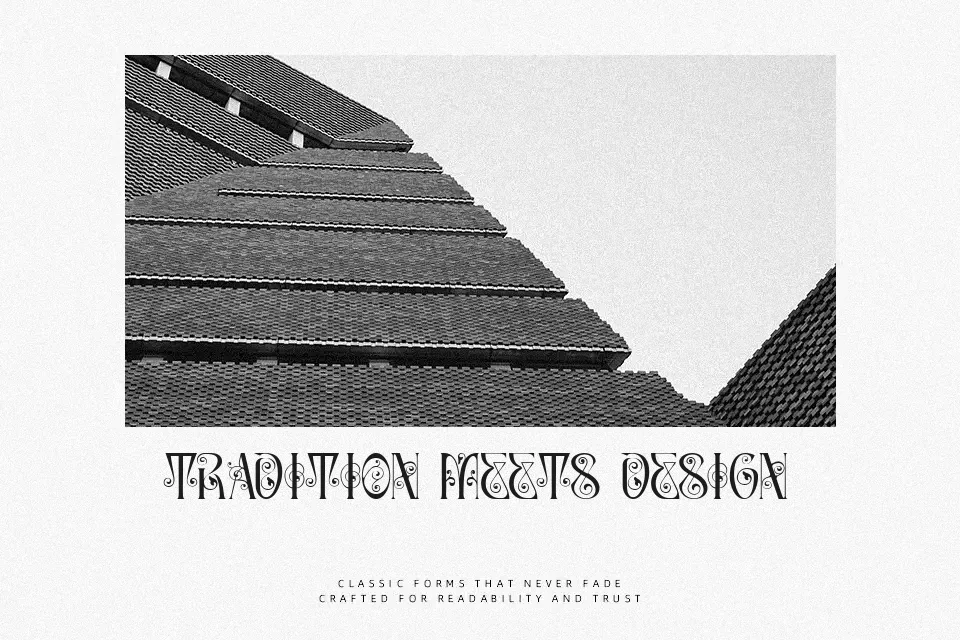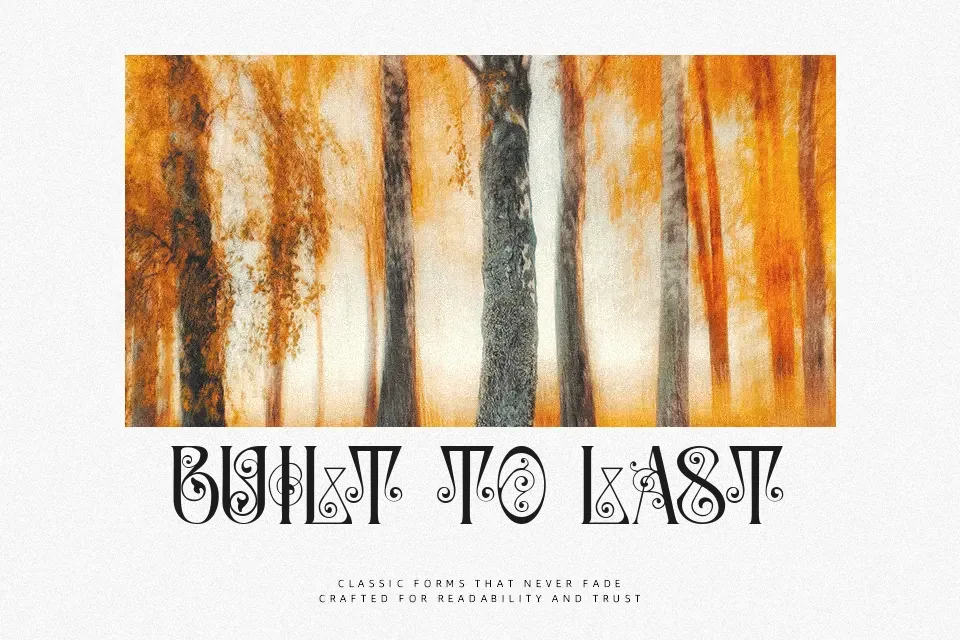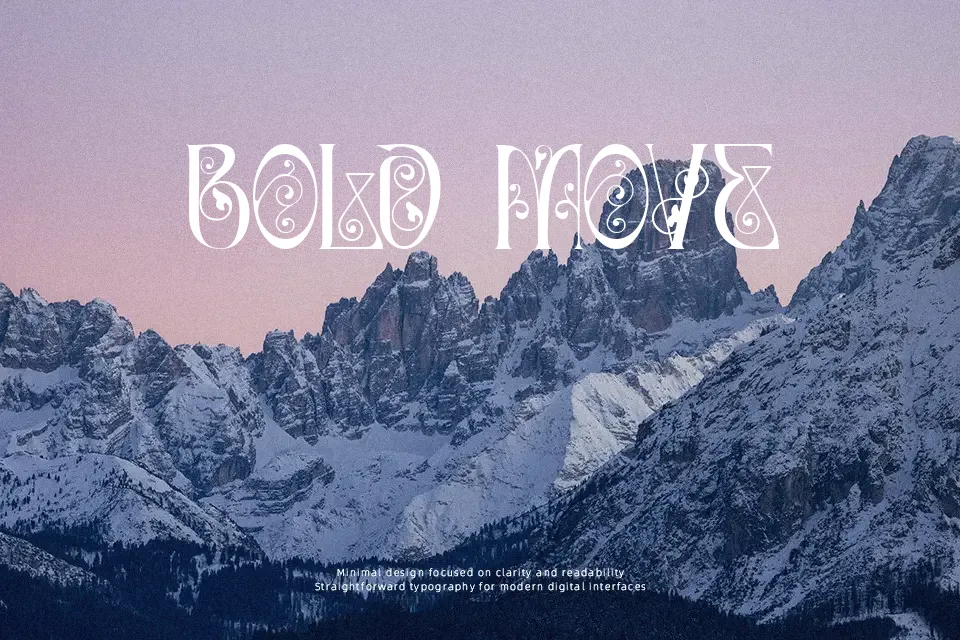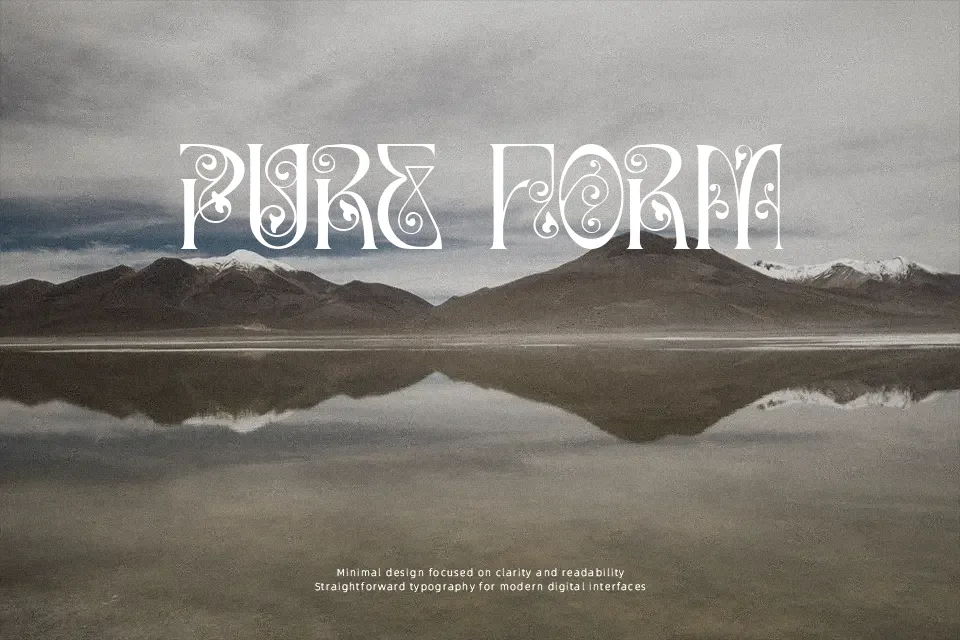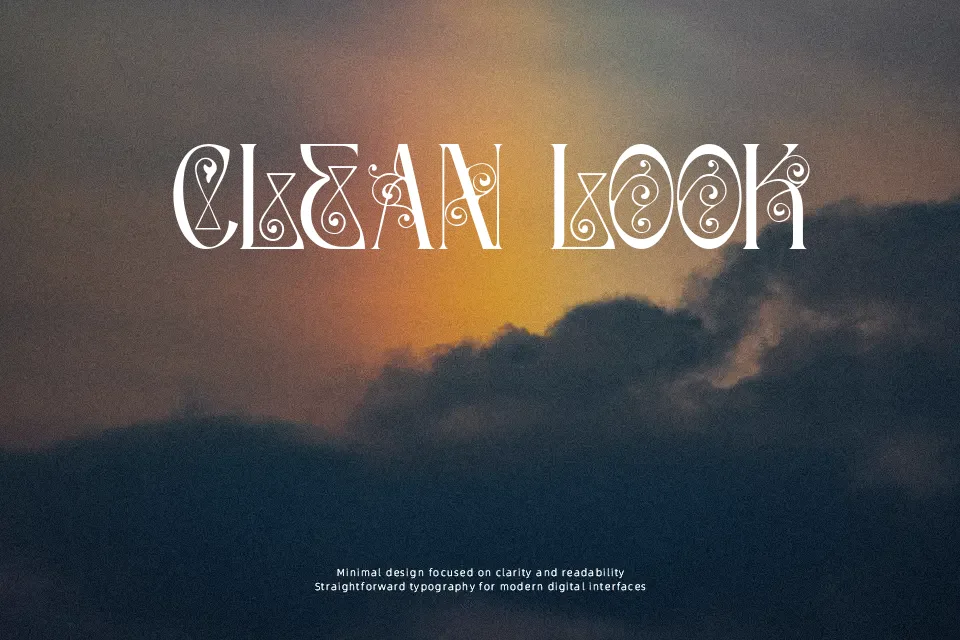
Article Master Font
Designed by 177Studio
There’s a dressed-up quality to Article Master that you notice before reading a single word — the strokes carry deliberate ornamentation, the letterforms lean into editorial tradition, and the overall spacing feels composed rather than casual. It suits contexts where typography needs to carry visual authority: magazine cover titles, editorial section headers, or boutique branding mockups. The contrast between thick and thin strokes gives it a structured but expressive presence, closer to vintage print culture than modern minimalism. Where it falls short is in flexibility — this is not a workhorse font. Small sizes reduce legibility fast, and long body text would exhaust both the reader and the design. Use it in short, high-impact bursts and it earns its place; push it into dense layout work and it quickly becomes noise.
Best For:- Magazine and editorial headline design
– Boutique product packaging headers
– Branding mockups for lifestyle or fashion projects
– Decorative poster title treatments
Not Ideal For:- Body text or long-form reading
– Digital UI labels or navigation
– Corporate or formal document design
– Small-size print applications
Perfect for branding, editorial, and headline, with a bold and decorative style.